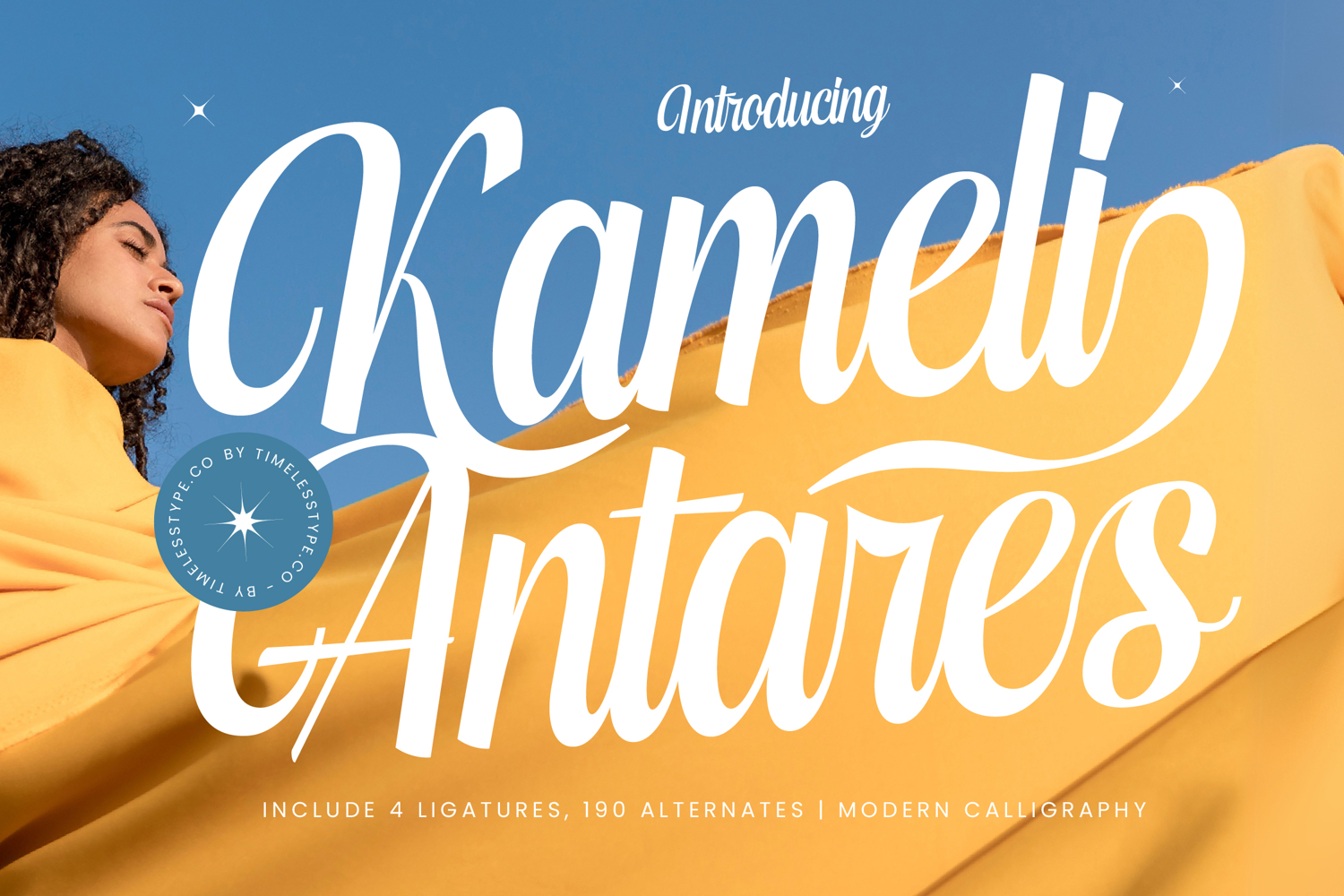
Kameli Antares - Modern Calligraphy Font
Kameli Antares
Kameli Antares Italic
Kameli Antares - Modern Calligraphy Font introduces a captivating blend of fluid grace and contemporary sophistication. This beautiful script font embodies a **handwritten charm** with a refined, **modern aesthetic**, making every word a statement. Its **sweeping curves** and **harmonious rhythm** are meticulously crafted to convey **authenticity** and **premium appeal** in every design.
Experience design excellence without boundaries with **Kameli Antares - Modern Calligraphy Font**. Boasting a rich set of **190 alternates** and **4 ligatures**, it offers unparalleled creative flexibility, allowing designers to sculpt truly **unique typographic compositions**. With its extensive multilingual support, **Kameli Antares - Modern Calligraphy Font** adapts seamlessly across global markets, making it incredibly **versatile** for international projects. This ensures your message resonates universally.
Elevate your projects with a touch of bespoke artistry. **Kameli Antares - Modern Calligraphy Font** is the ultimate choice for **luxury branding**, **upscale product packaging**, **elegant wedding invitations**, and **high-end editorial design**. It’s also perfect for creating impactful **social media graphics**, **memorable logos**, **sophisticated apparel**, and **distinctive quotes**. This font ensures your creations exude a **polished**, **exclusive**, and **inviting presence**.